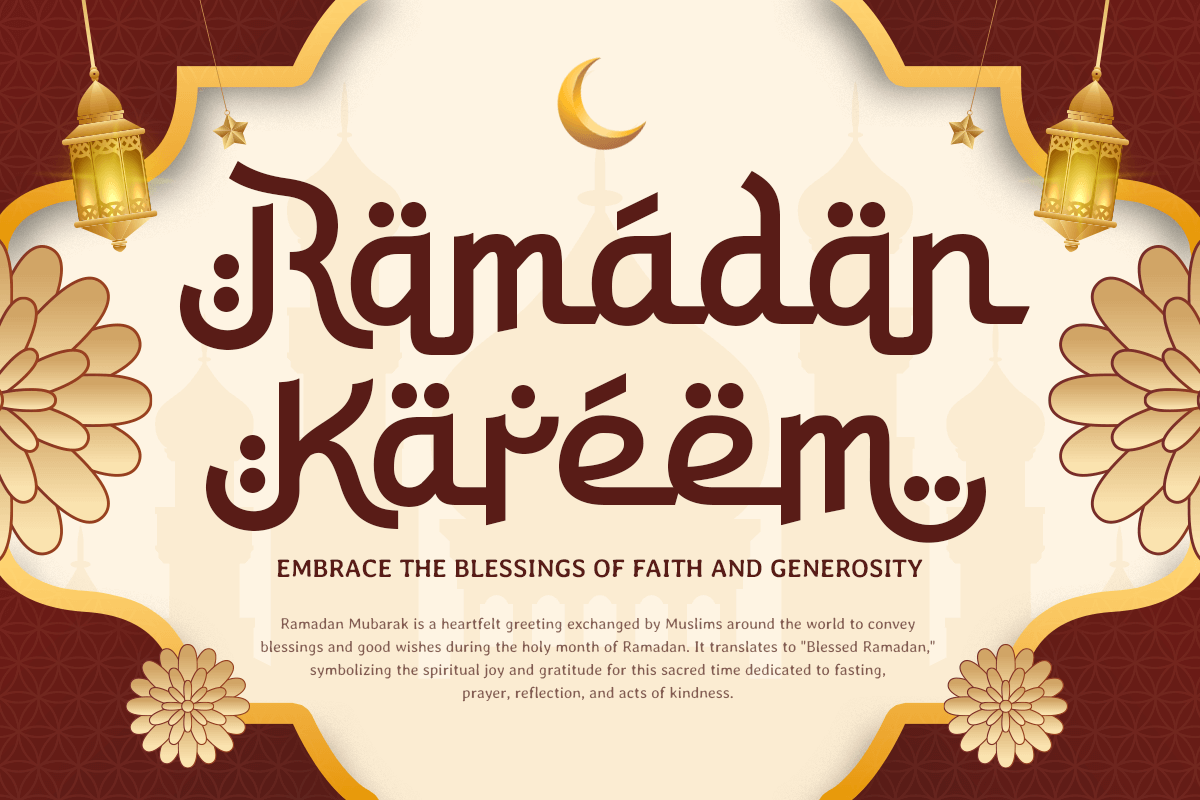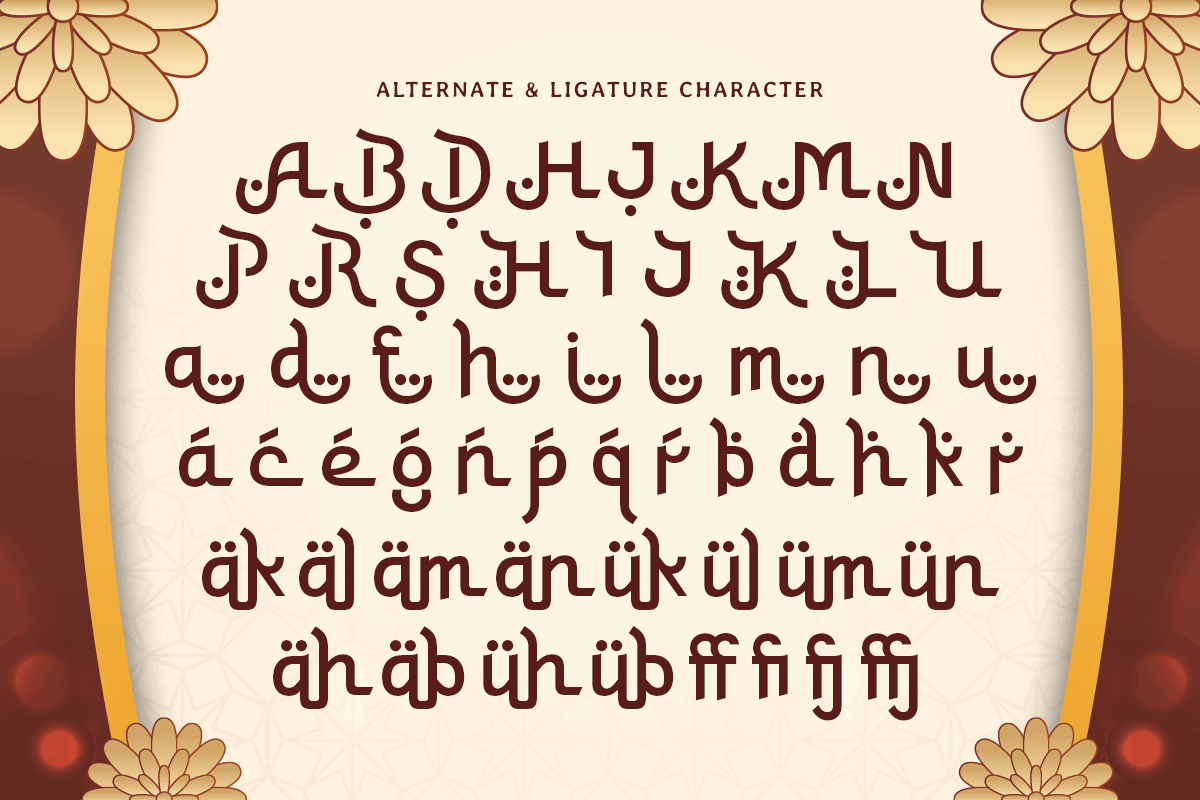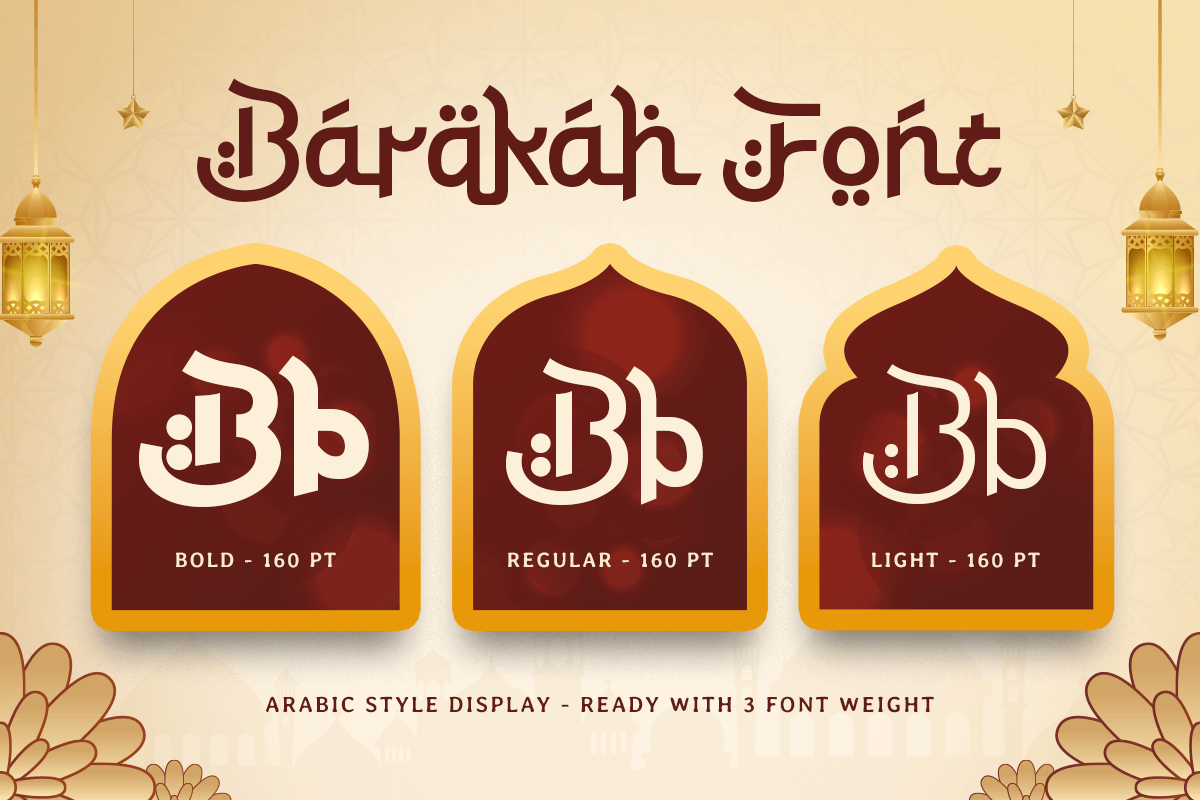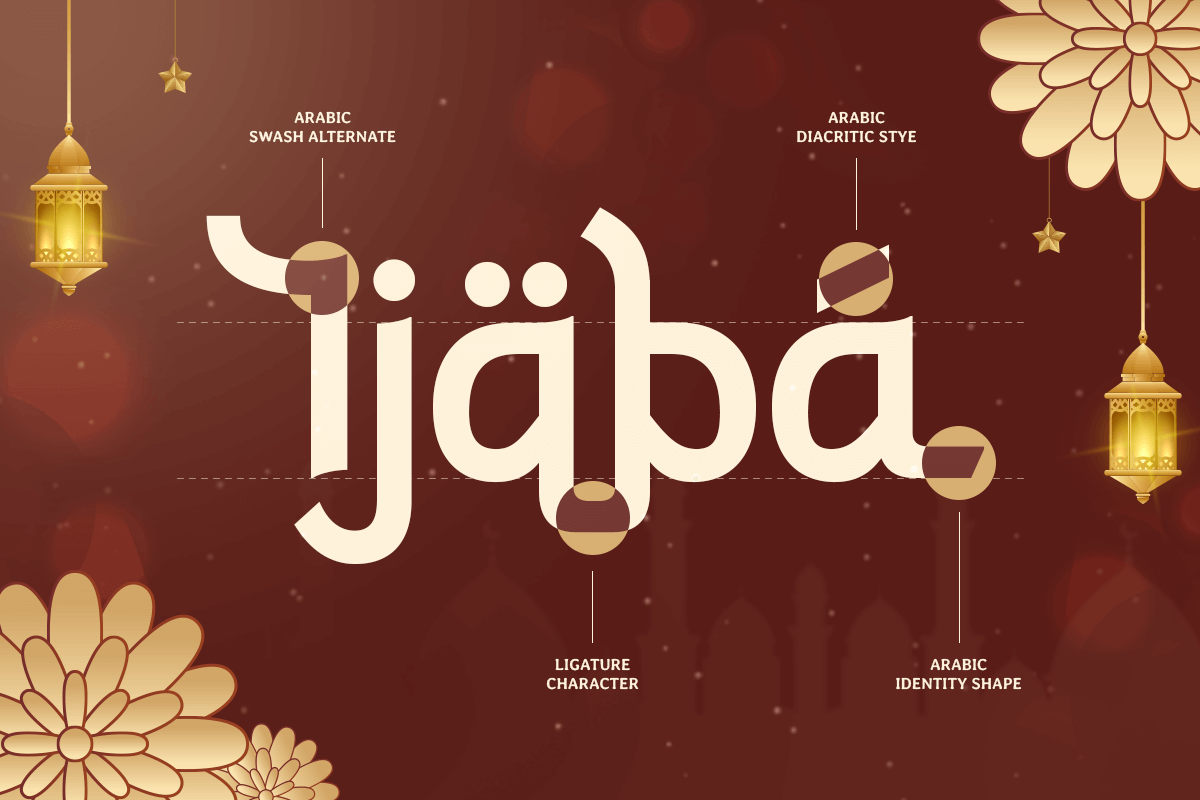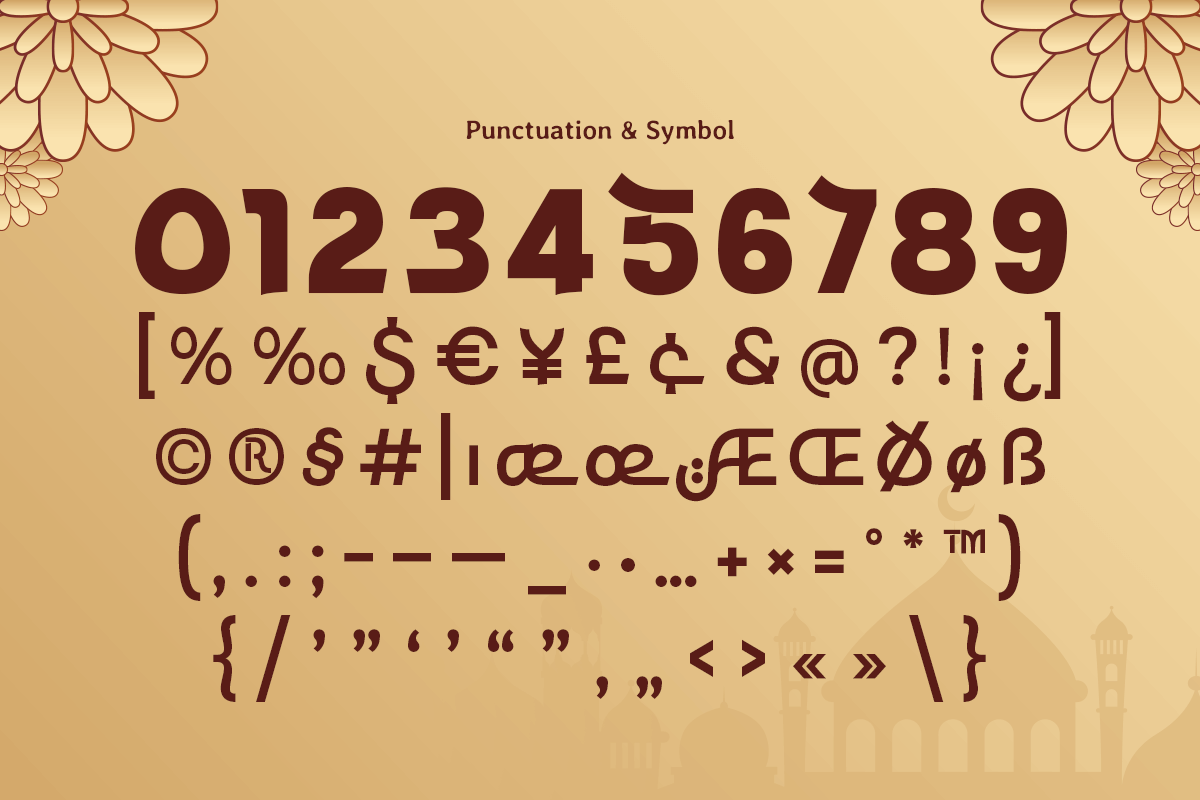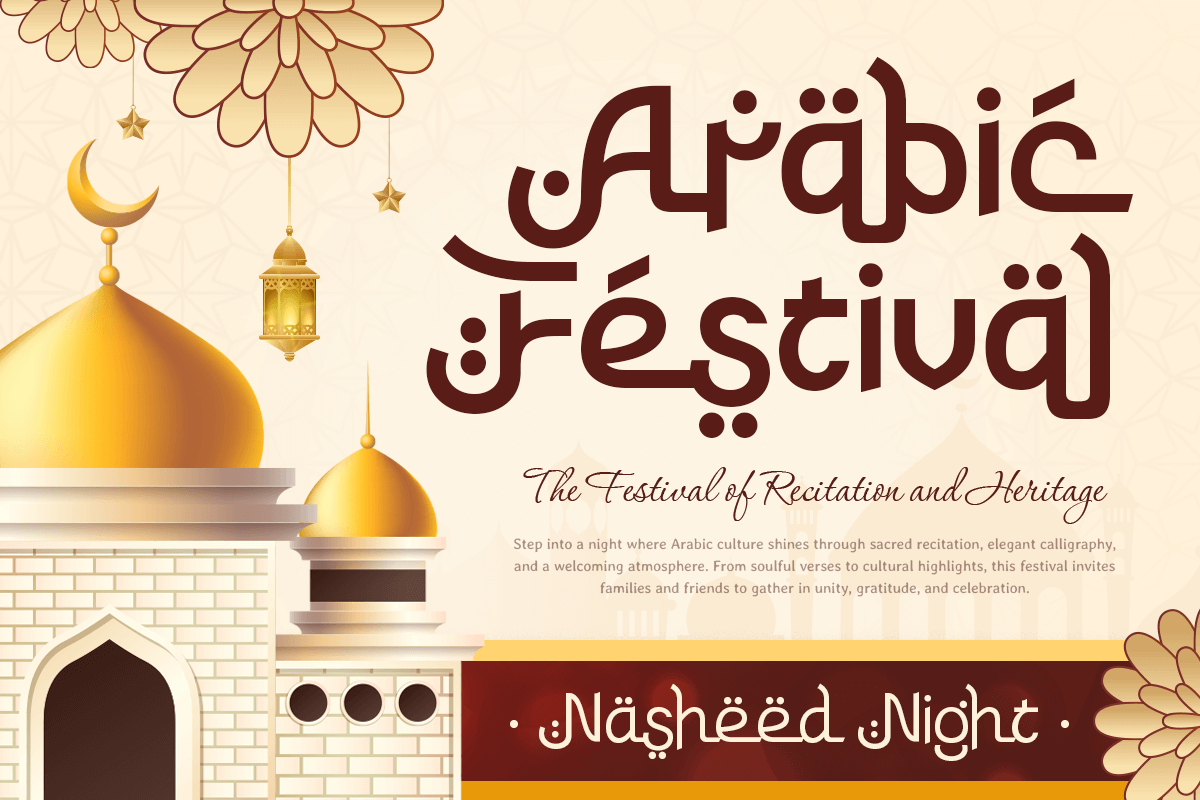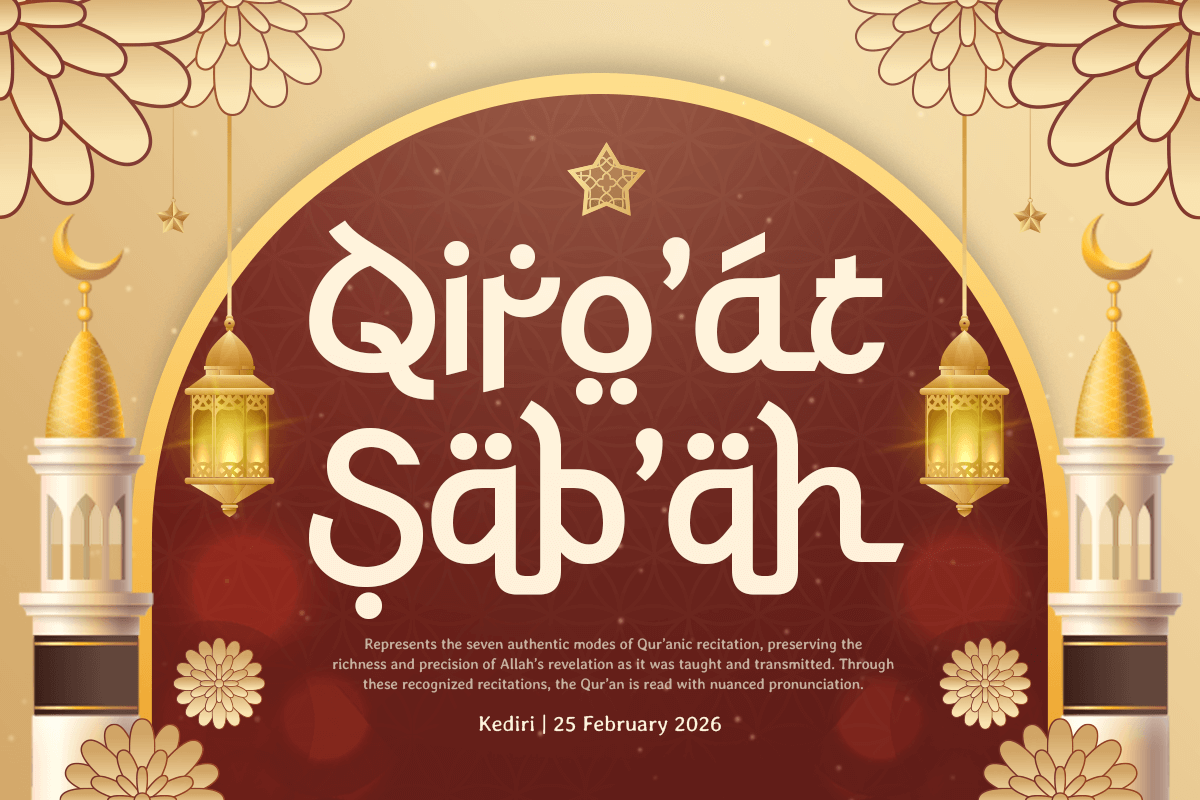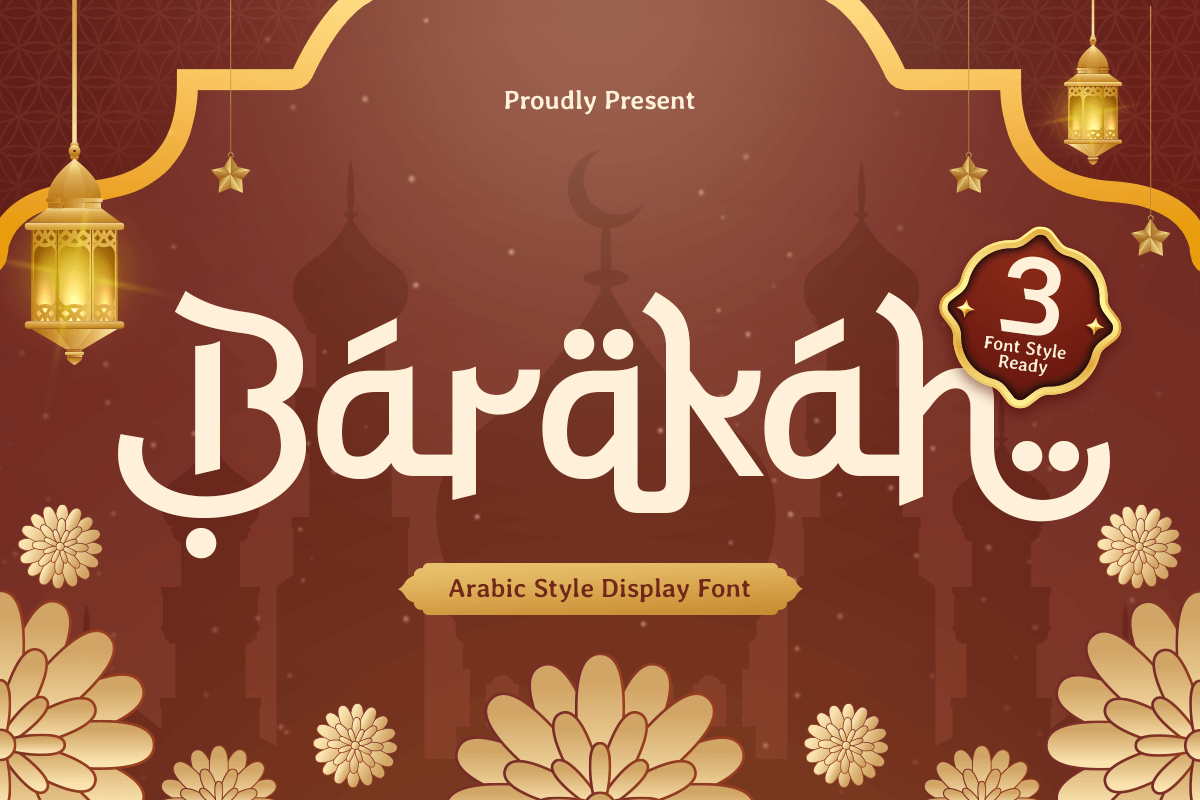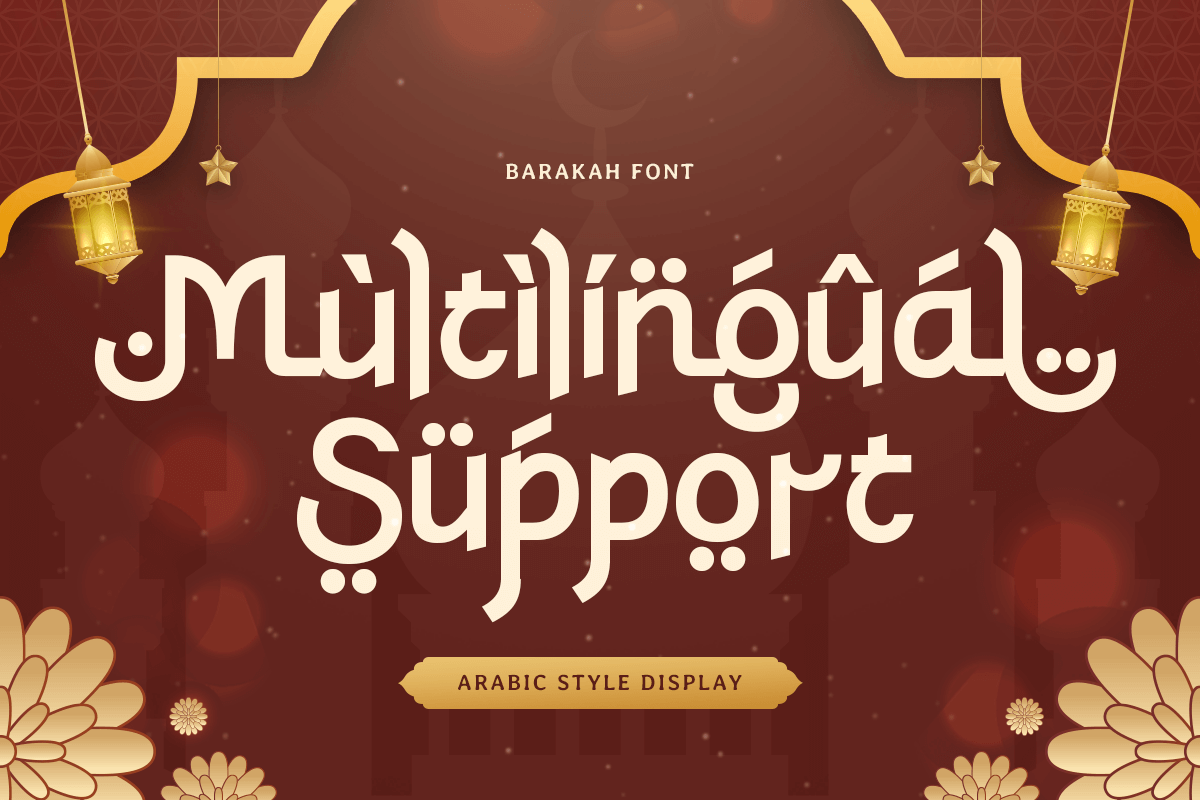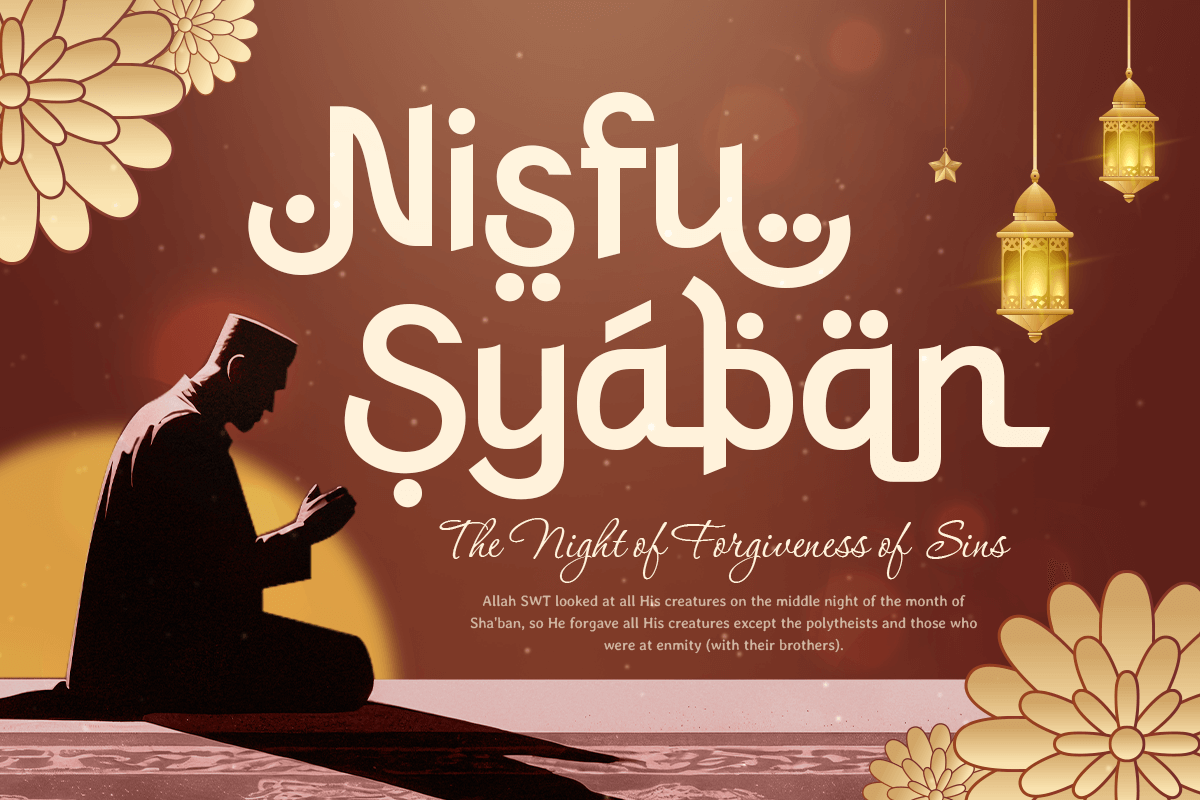
Barakah - Arabic Style Display Font
Barakah – Arabic Style Display Font
Barakah is an Arabic-style display font inspired by Islamic culture, spirituality, and artistic expression. With decorative strokes, bold forms, and authentic Arabic nuances, Barakah is perfect for Islamic branding, Ramadan and Eid designs, event posters, headlines, invitations, packaging, and cultural visual projects.
Designed to convey meaning, celebration, and tradition, Barakah combines strong display impact with cultural elegance. Its expressive character makes it ideal for religious events, mosque programs, Islamic festivals, charity campaigns, and designers seeking a display font with spiritual and cultural depth.
Barakah – Arabic Style Display Font Features:
* Arabic-inspired display font with cultural character
* Ideal for Islamic events, Ramadan, and Eid designs
* Prepared with 3 weights: light, regular and bold
* Uppercase, lowercase, numerals, and punctuation included
* Decorative letterforms with strong visual presence
* Perfect for festive, spiritual, and cultural design projects
Bring cultural meaning and visual strength to your designs with Barakah – an Arabic style display font made to inspire.